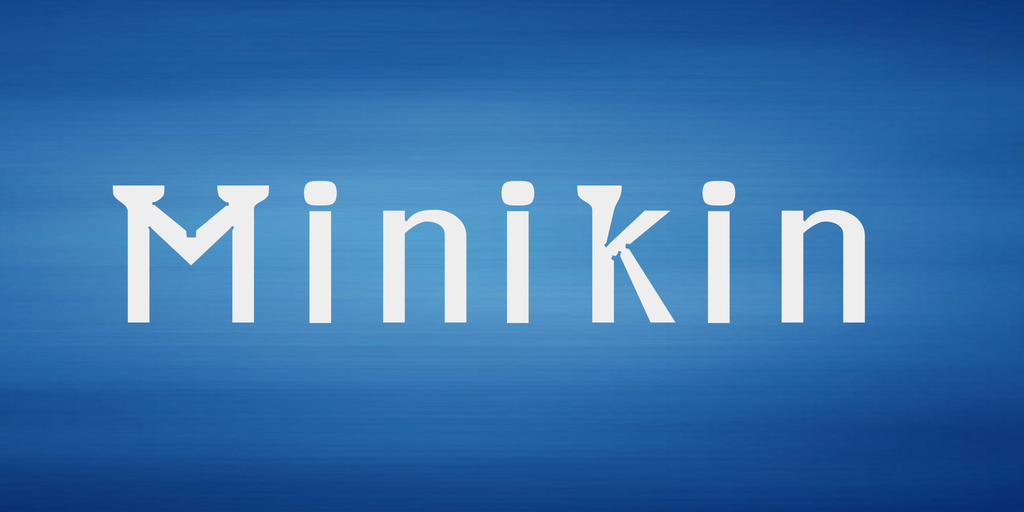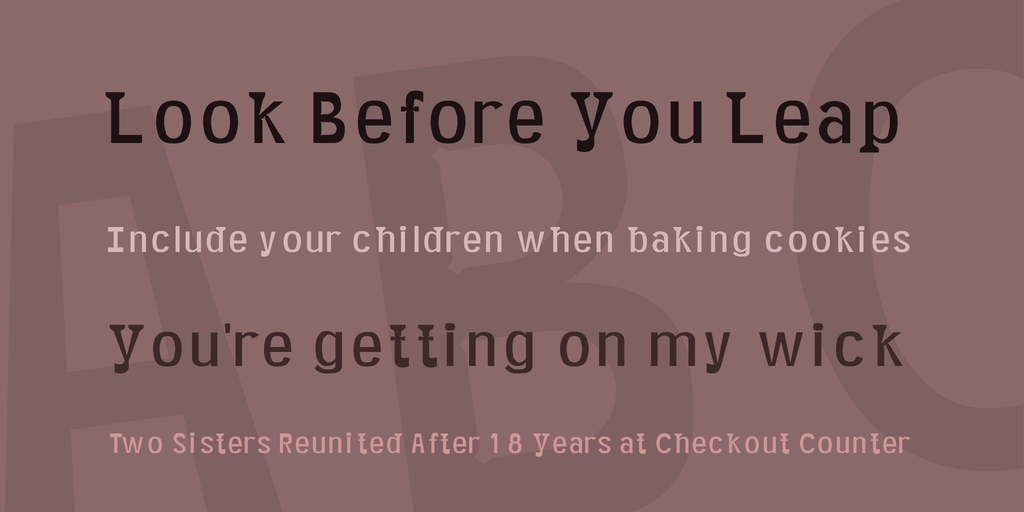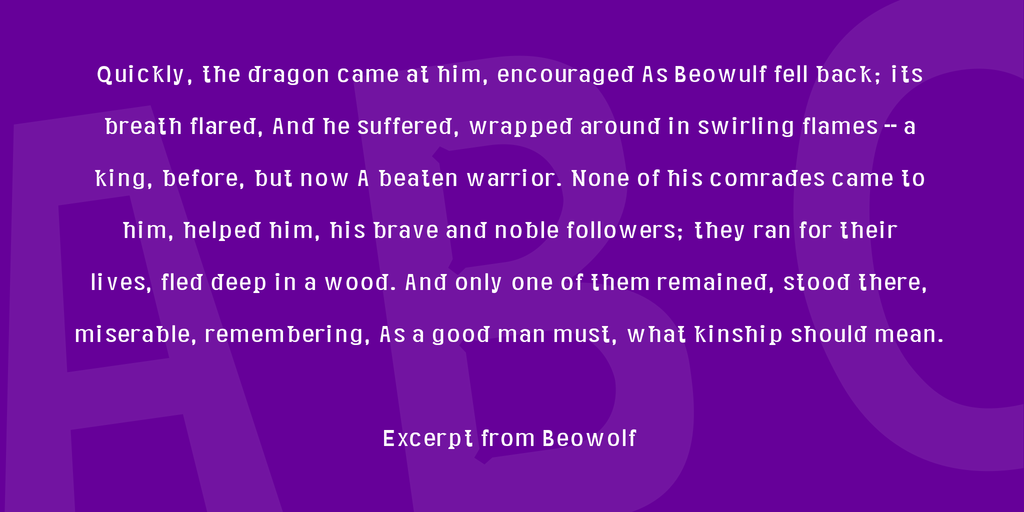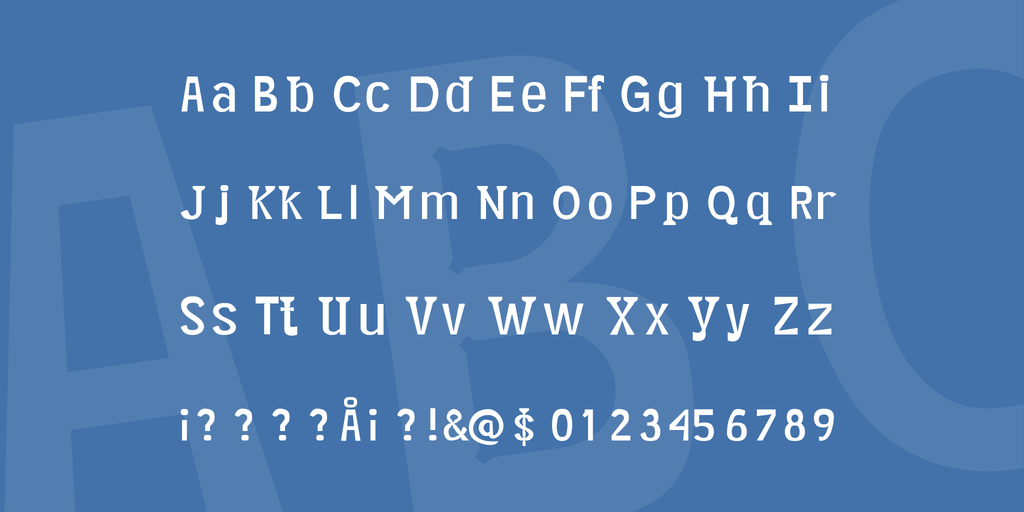
Minikin Font
Minikin is a caption font, made for display at extremely small sizes.
I call it a semi-serif font because it only has serifs on ascenders and descenders. By making the ascenders and descenders so wide, I was able to shrink their height. It’s fairly common for descenders to take up about 20% of a font’s height. In Minikin, the descenders only take up 15% of the height. The ascenders are also compressed to take only 15% (measuring between x-height and cap-height). A few characters—(,|, {,},l, and)— extend beyond the cap-height by a further 3%. This leaves a full 67% of the height for main body of most letters. Some other things that make it legible at small sizes are:
(1) It has low stroke contrast. The thickest strokes are about 13% of the height. The thinnest are about 8%.
(2) It has thick strokes, which prevents it from looking washed-out at small sizes. (At larger sizes, its thick strokes and vertical emphasis make it look a bit like a blackletter.)
(3) Its counters are very open. Rather than anchoring curves with one point, I often anchored them with two, making the circular areas bulge toward becoming rectangles.
(4) Where whitespace points in toward the letter, a little additional whitespace has been hollowed out to prevent that corner from filling with ink when printed. For an example of these hollows, view the ampersand around size 72.
(5) The letters are spaced generously: usually each of the bearings (the margins on each letter’s edges) is about as wide as a stroke, which means that the space between each letter pair is almost two strokes wide.